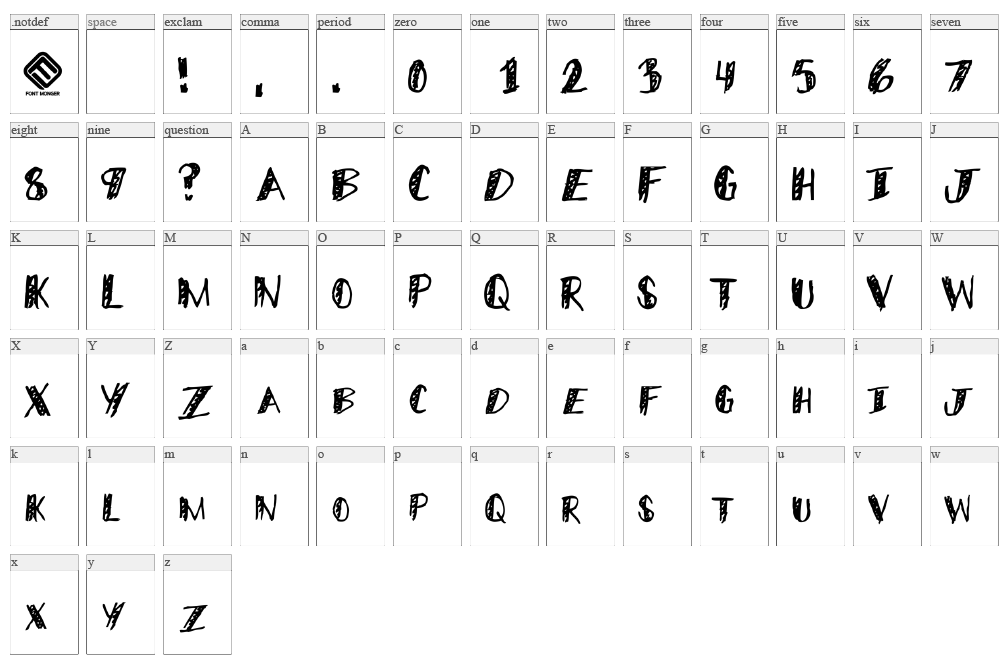
Lowercase: Same as uppercase scaled down 20%
Numbers: Yes
Symbols & Punctuation: Yes, limited view images to see available characters
Accents: No
Theme: Sans Serif, Cartoon, School, Handwritten